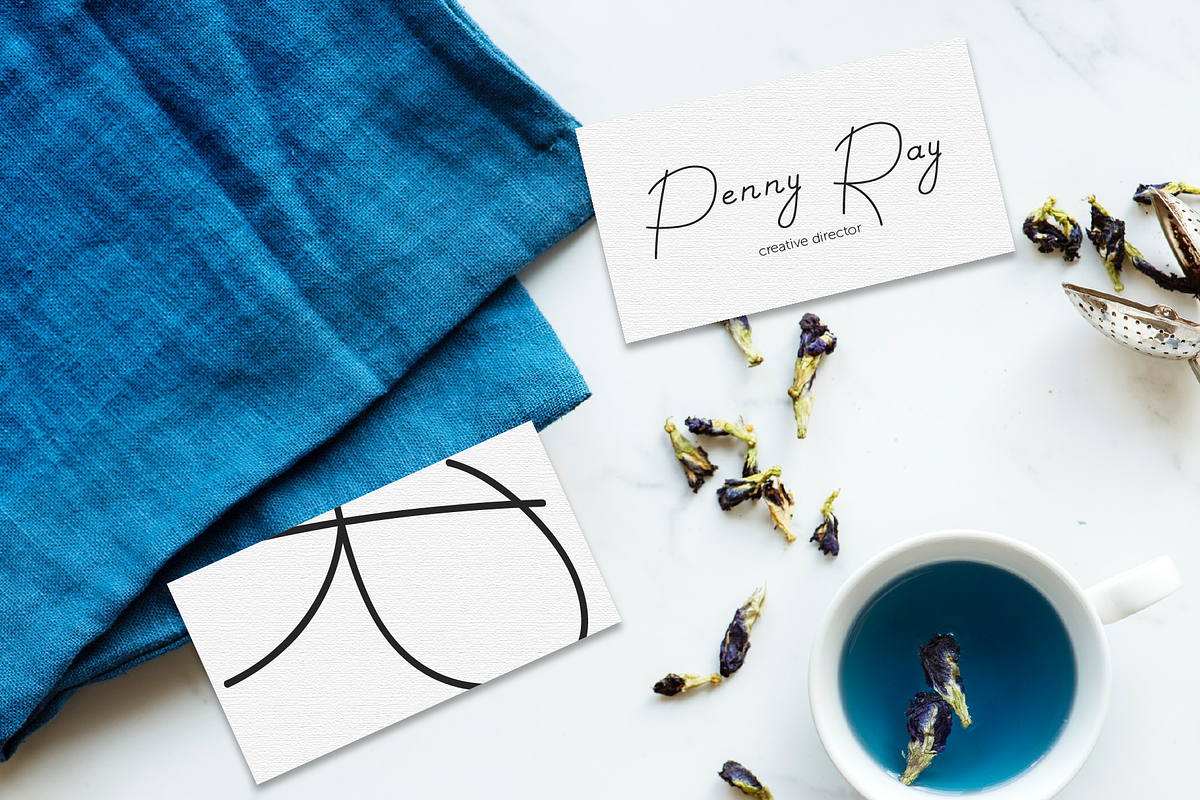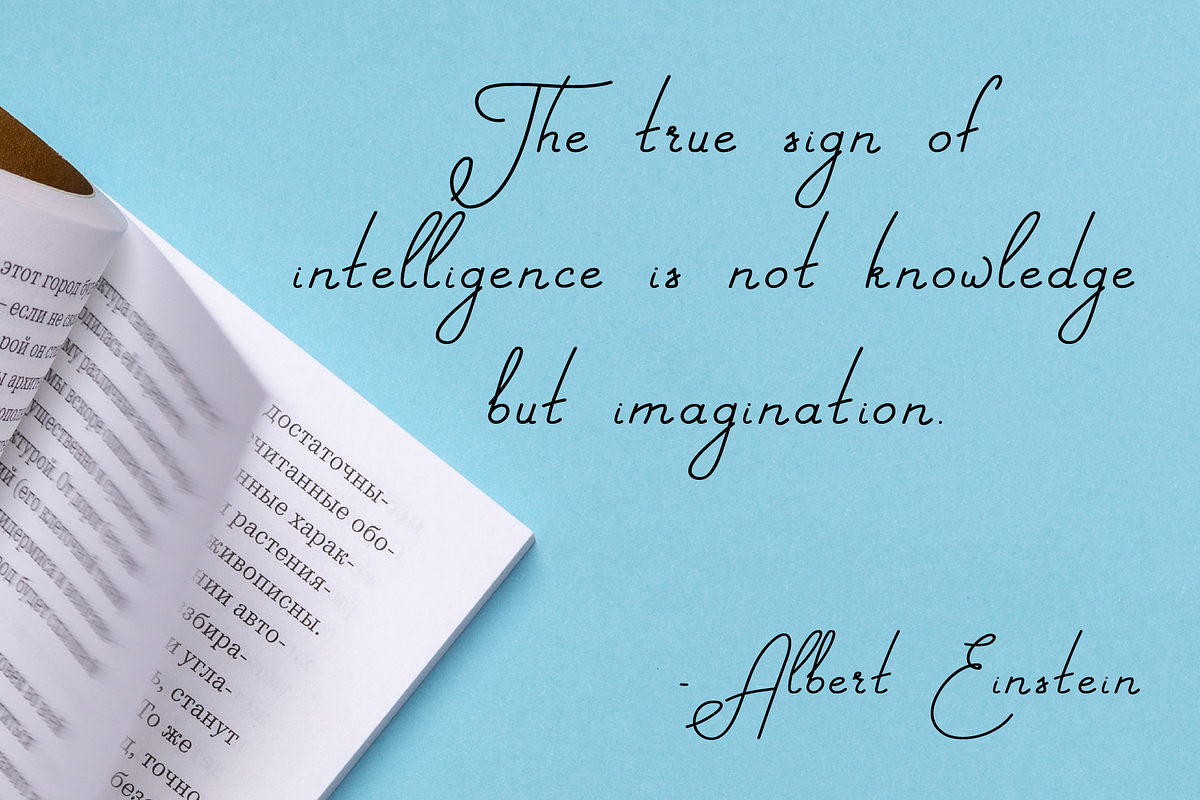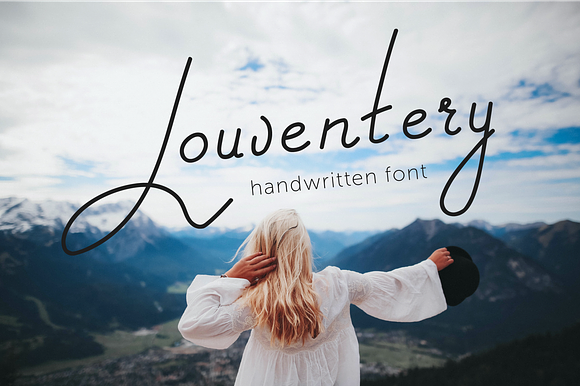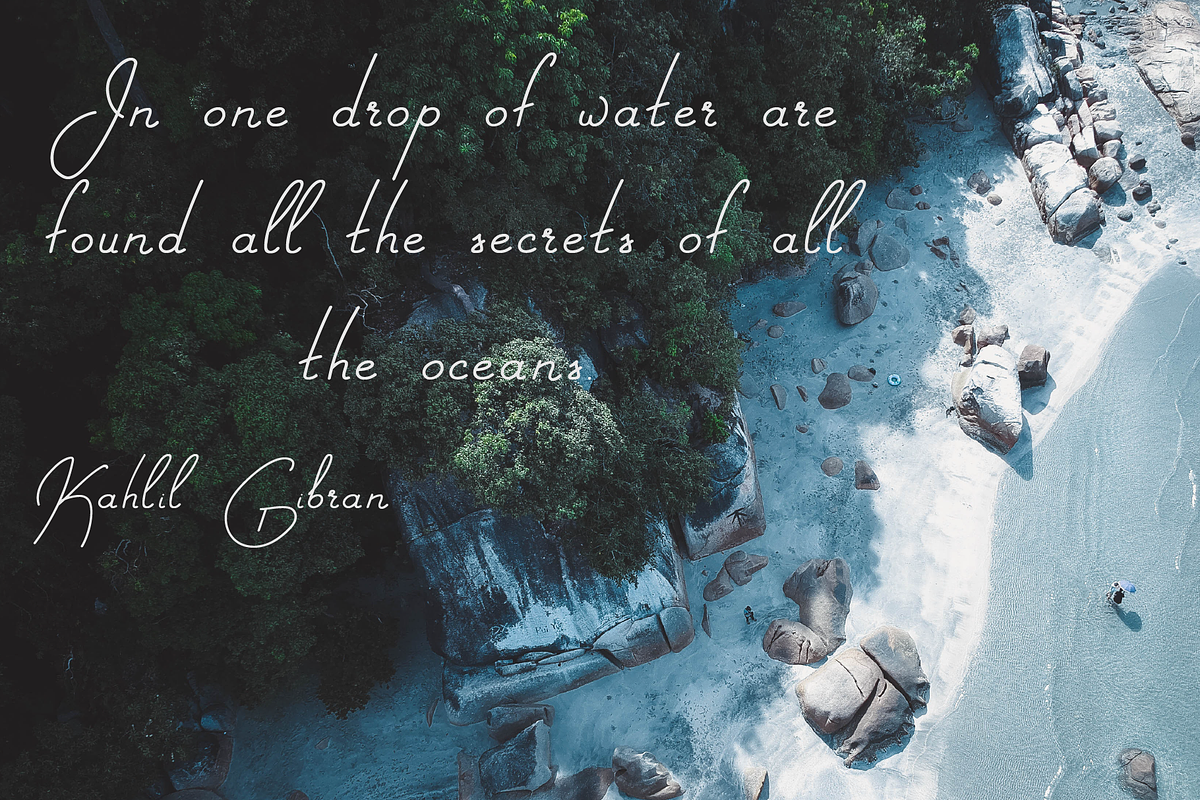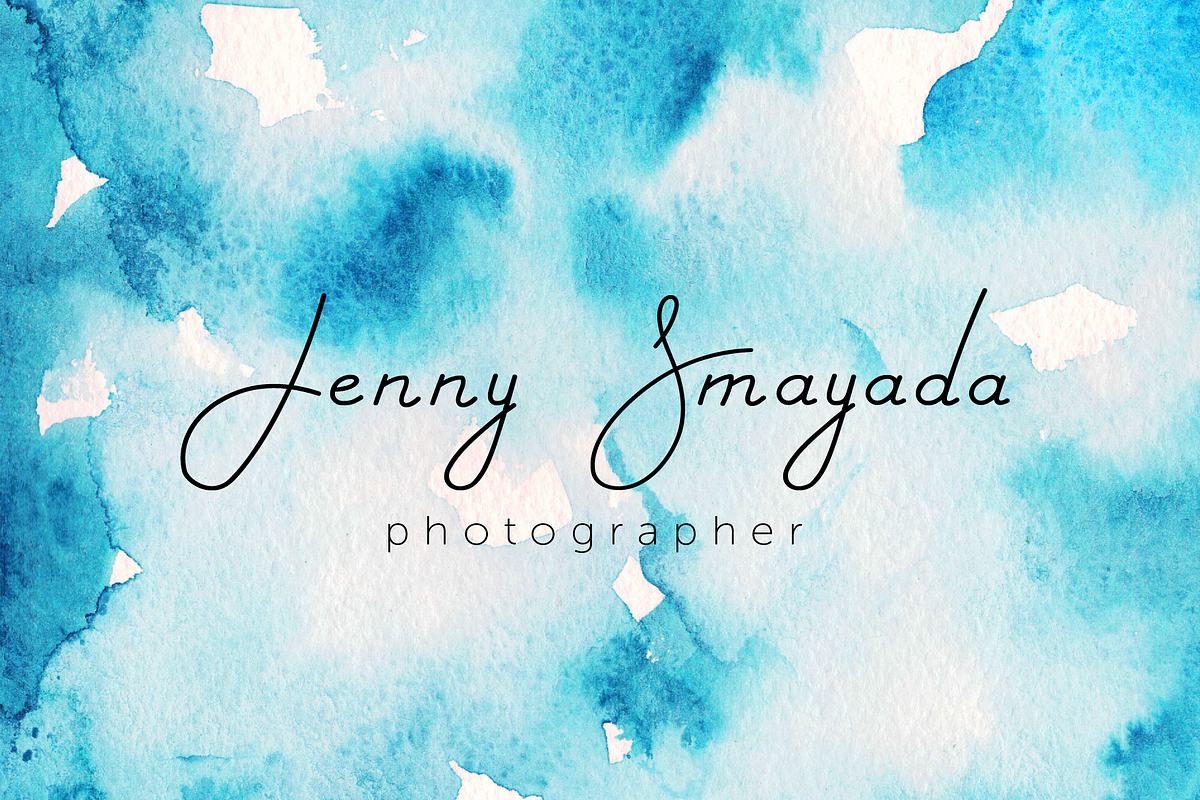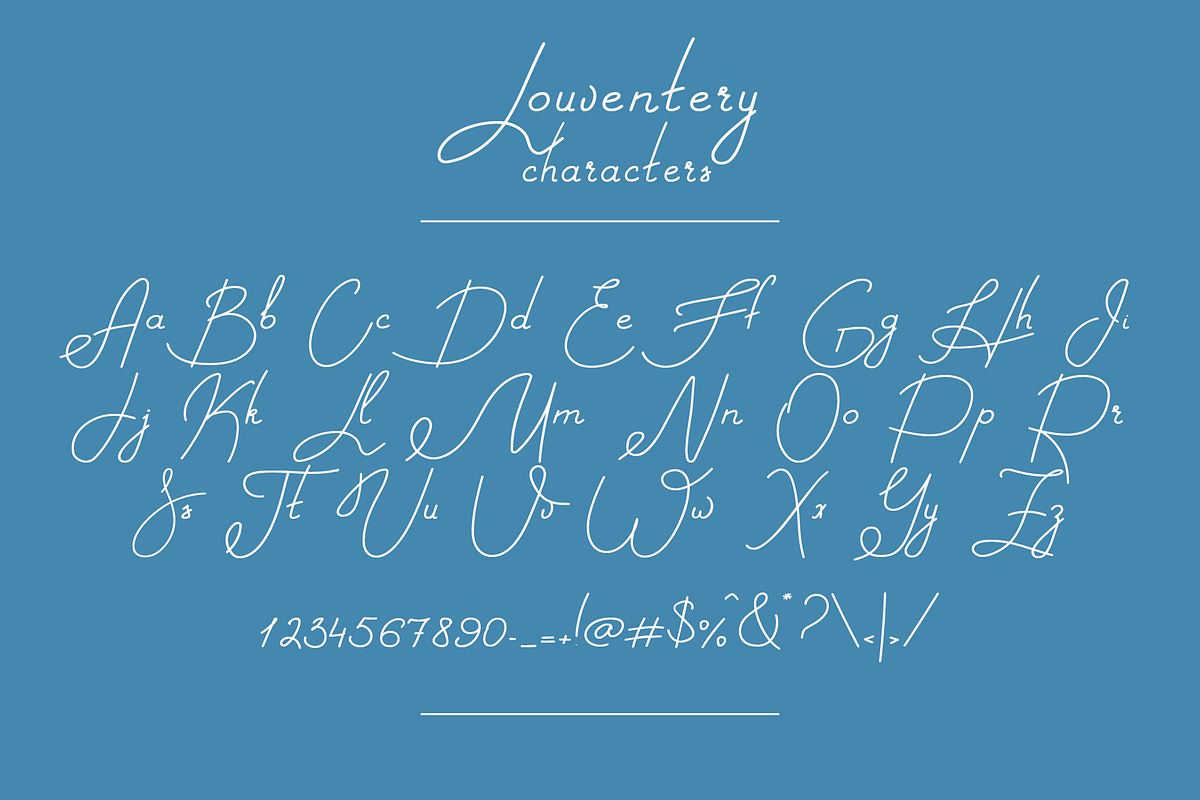
Louventery | a script font
Hey! I am glad to introduce you a handwritten font named Louventery.
This font well suited for titles, quotes, phrases, signatures and branding. Also it would look great in logos, invitations, labels, heading and posters. You don't need any additional programs to use this font. Just install the font and enjoy!
Louventery | a script font by Wander Designs fits naturally into Branding, posters, packaging, typography.